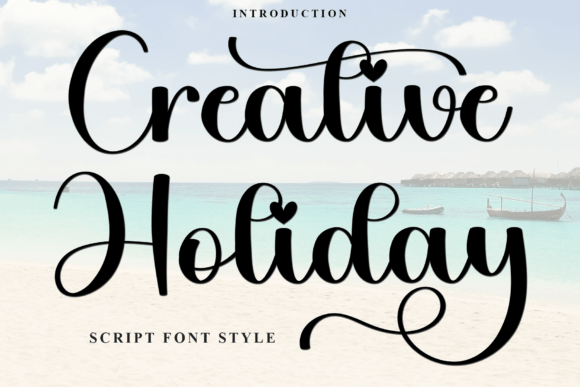
Introducing Creative Holiday Font: Elevate Your Designs with a Touch of Festivity
Are you looking for a font that adds a dash of creativity and festivity to your designs? Look no further than the Creative Holiday Font. This beautiful and eye-catching font is designed with a soft, unique touch that sets it apart from other fonts. Its distinctive strokes give it a special character, making it meaningful and versatile for future use.
What Makes Creative Holiday Font Stand Out?
The Creative Holiday Font is perfect for designers and crafters who want to add a personal touch to their work. With its unique and stylish design, this font is sure to make your projects stand out. Whether you’re working on a holiday-themed design, a craft project, or any other creative work, this font is ideal for adding a touch of festivity and fun.
One of the key features of the Creative Holiday Font is its versatility. It can be used for a wide range of design projects, from greeting cards and invitations to posters and social media graphics. The font’s distinctive strokes and soft texture give it a special character that will make your designs more engaging and appealing to your audience.
Key Features of Creative Holiday Font
- Unique and Stylish Design: The Creative Holiday Font has a distinctive and stylish design that sets it apart from other fonts.
- Soft and Eye-Catching Texture: The font’s soft texture gives it a warm and inviting feel that’s perfect for holiday-themed designs.
- Versatile and Meaningful: The font’s distinctive strokes make it meaningful and versatile for future use.
- Natural Font Style: The font’s natural style makes it ideal for a wide range of products, from design projects to crafts and other creative works.
Why Choose Creative Holiday Font?
There are many reasons why designers and crafters should choose the Creative Holiday Font for their projects. Here are just a few:
- Adds a Touch of Festivity: The Creative Holiday Font adds a touch of festivity and fun to any design project.
- Perfect for Holiday-Themed Designs: The font’s holiday-themed design makes it perfect for holiday-themed designs, such as Christmas cards and Halloween posters.
- Enhances Designs: The font’s unique and stylish design enhances any design project, making it more engaging and appealing to the audience.
The Creative Holiday Font is a beautiful and eye-catching font that’s perfect for designers and crafters who want to add a touch of festivity and fun to their designs. With its unique and stylish design, soft texture, and versatility, this font is ideal for a wide range of design projects, from holiday-themed designs to crafts and other creative works. Its compatibility with various platforms makes it easy to use and integrate into your designs. So why wait? Download the Creative Holiday Font today and elevate your designs to the next level.
Whether you’re a professional designer or a crafter, the Creative Holiday Font is a must-have font for your design library. Its distinctive strokes and soft texture give it a special character that will make your designs more engaging and appealing to your audience. So go ahead, get creative, and make your designs shine with the Creative Holiday Font.